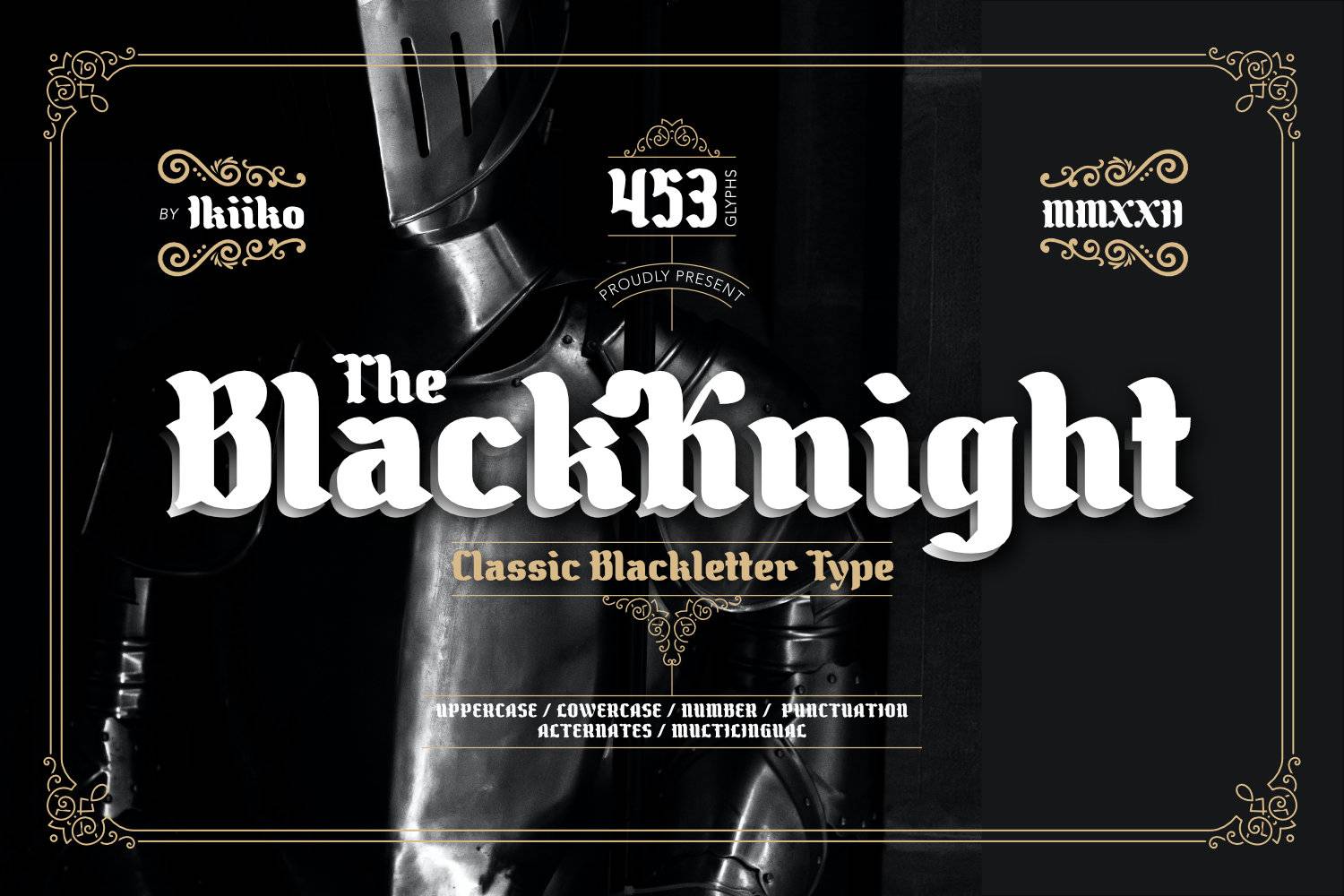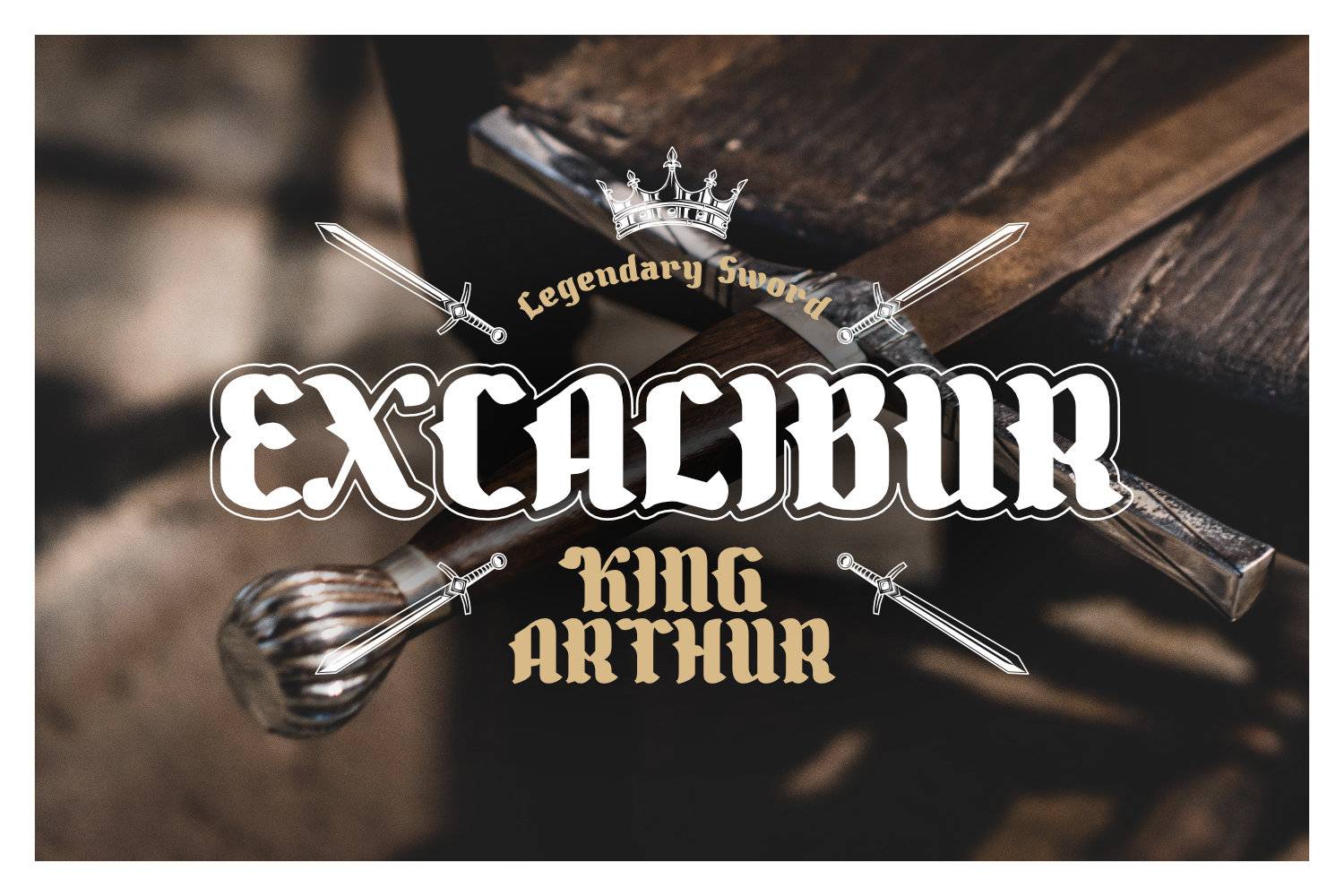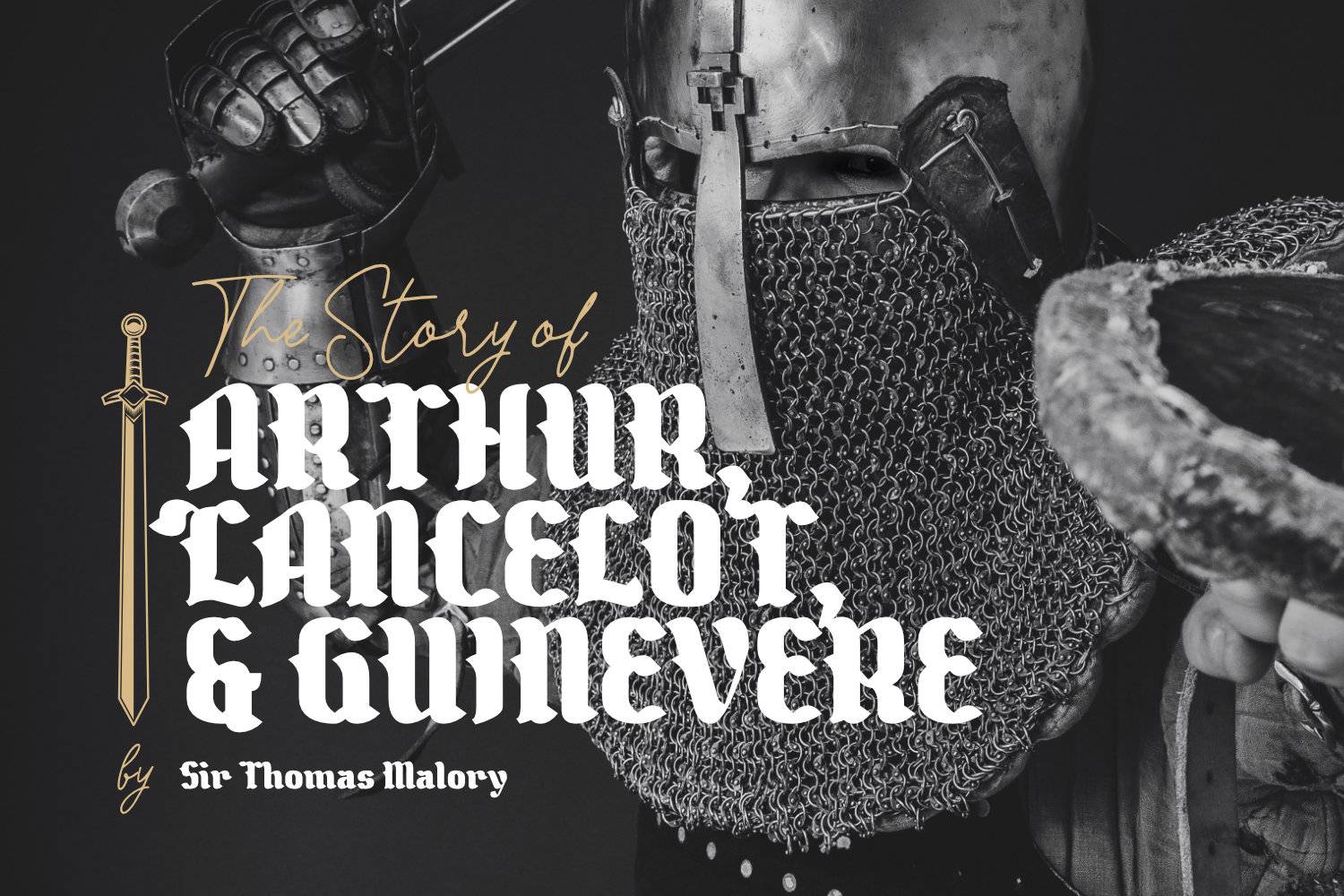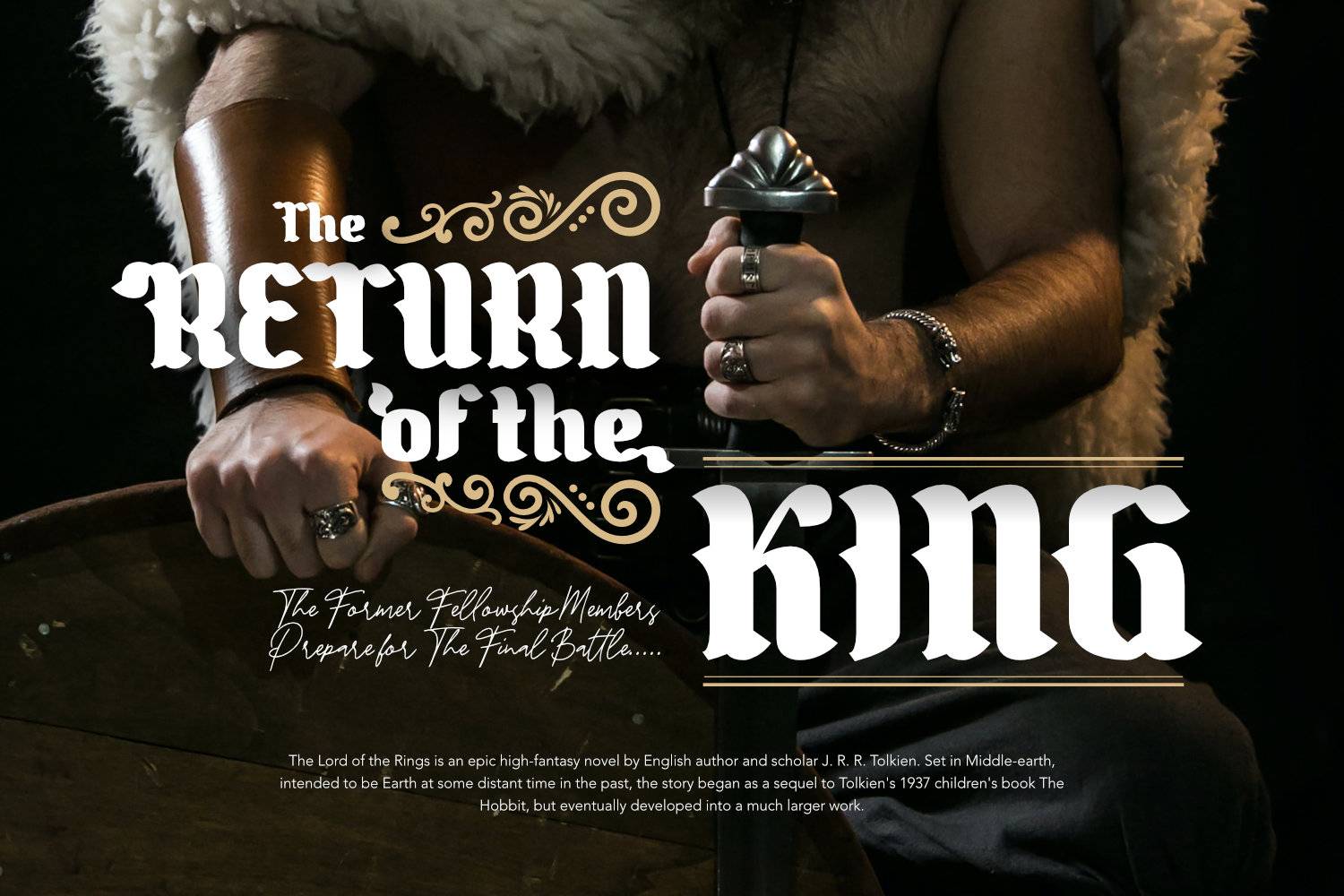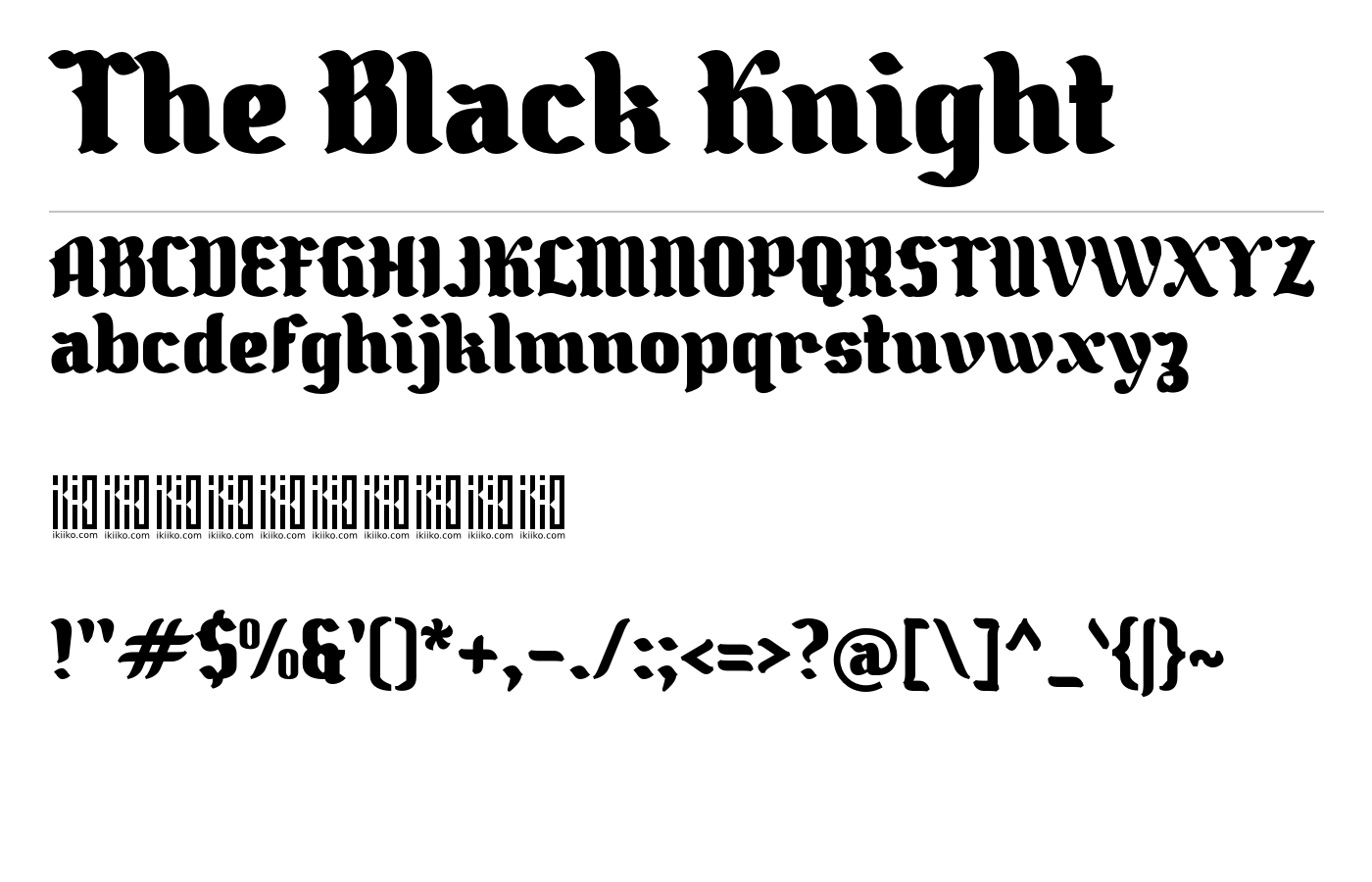
The Black Knight is a bold, blackletter-style serif font featuring thick, dramatic strokes with a strong medieval flair. Its dense, ornate letterforms, characterized by high contrast and sharp, angular serifs, evoke a historic, Gothic atmosphere perfect for vintage or fantasy-inspired designs. This font works best for striking headlines, logos, or branding that seeks to convey strength, tradition, and a touch of mystery.
The Black Knight Font
About The Black Knight Font
| Font family | The Black Knight Font |
| Designer | Wahyu Eka Prasetya, Andhika Pradana |